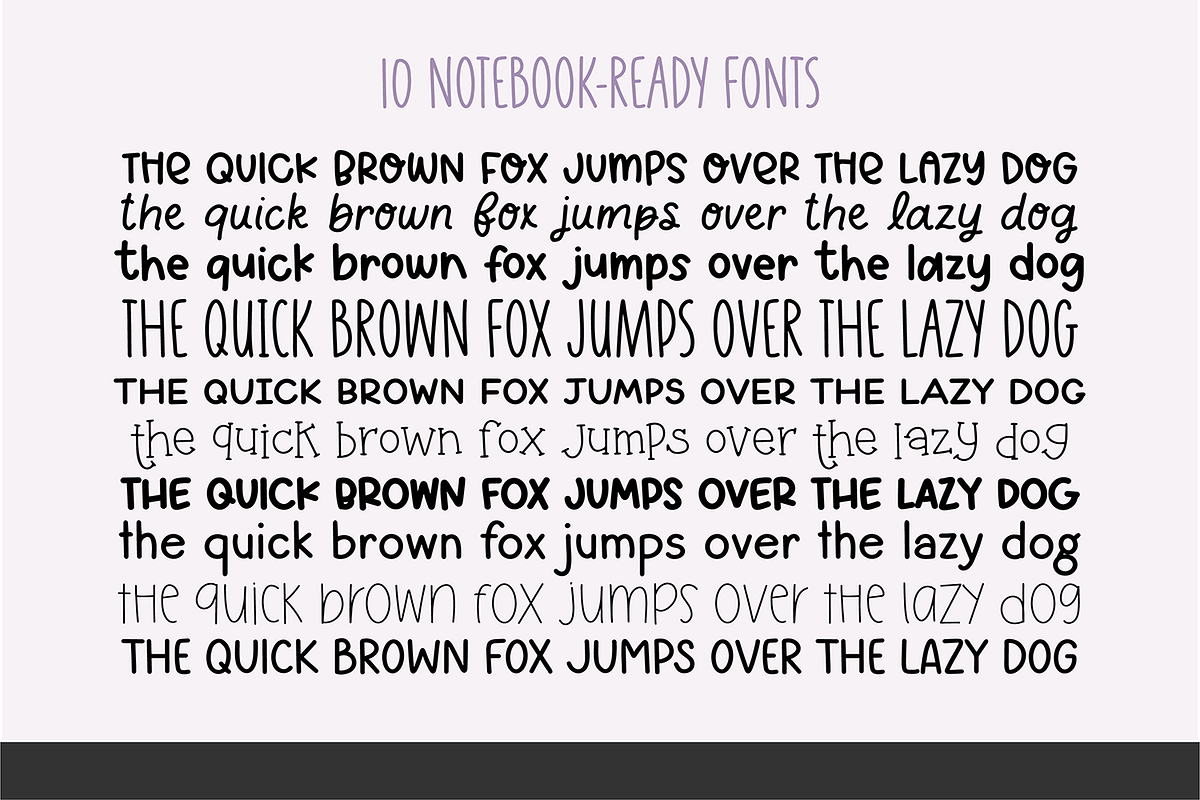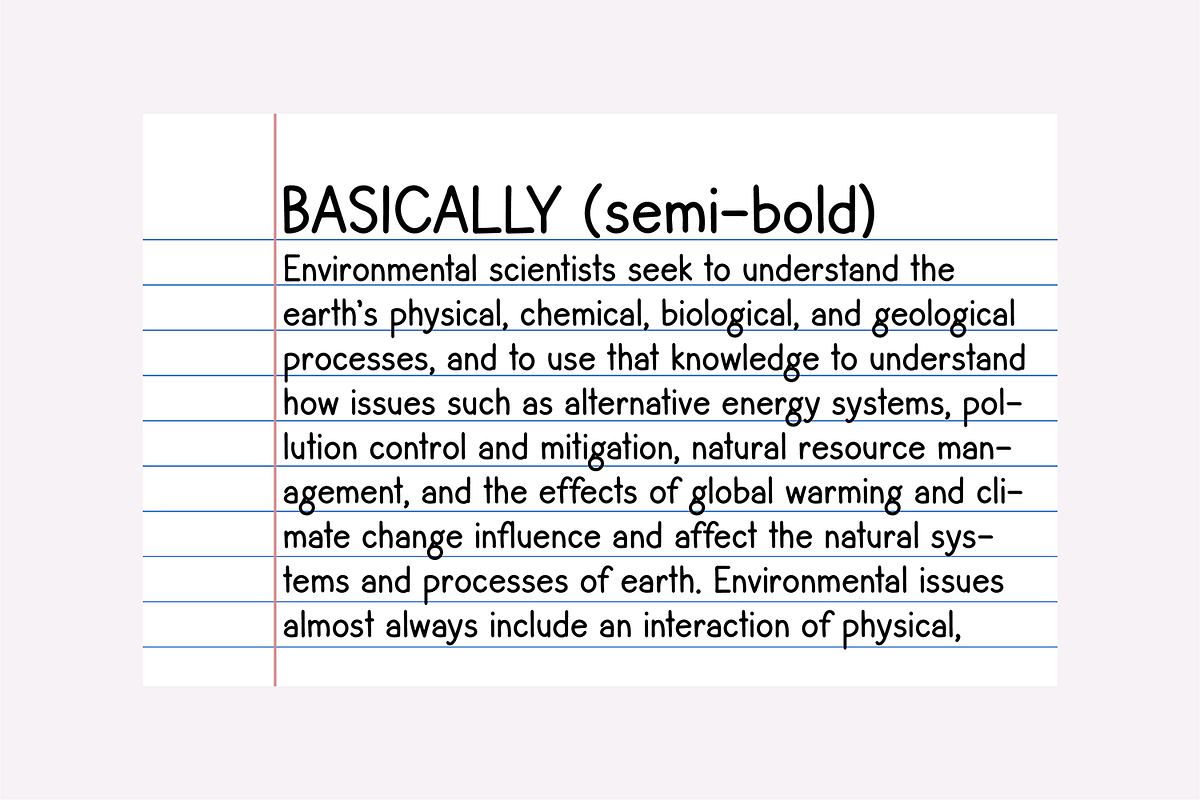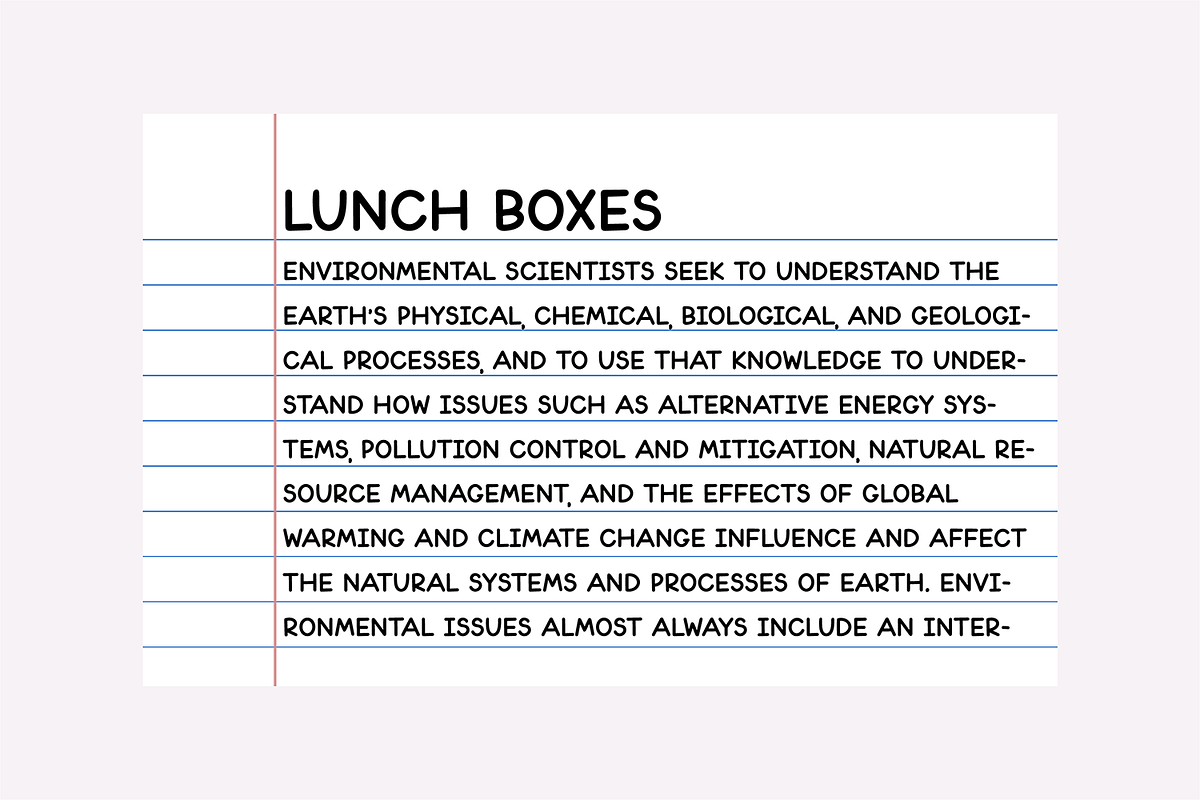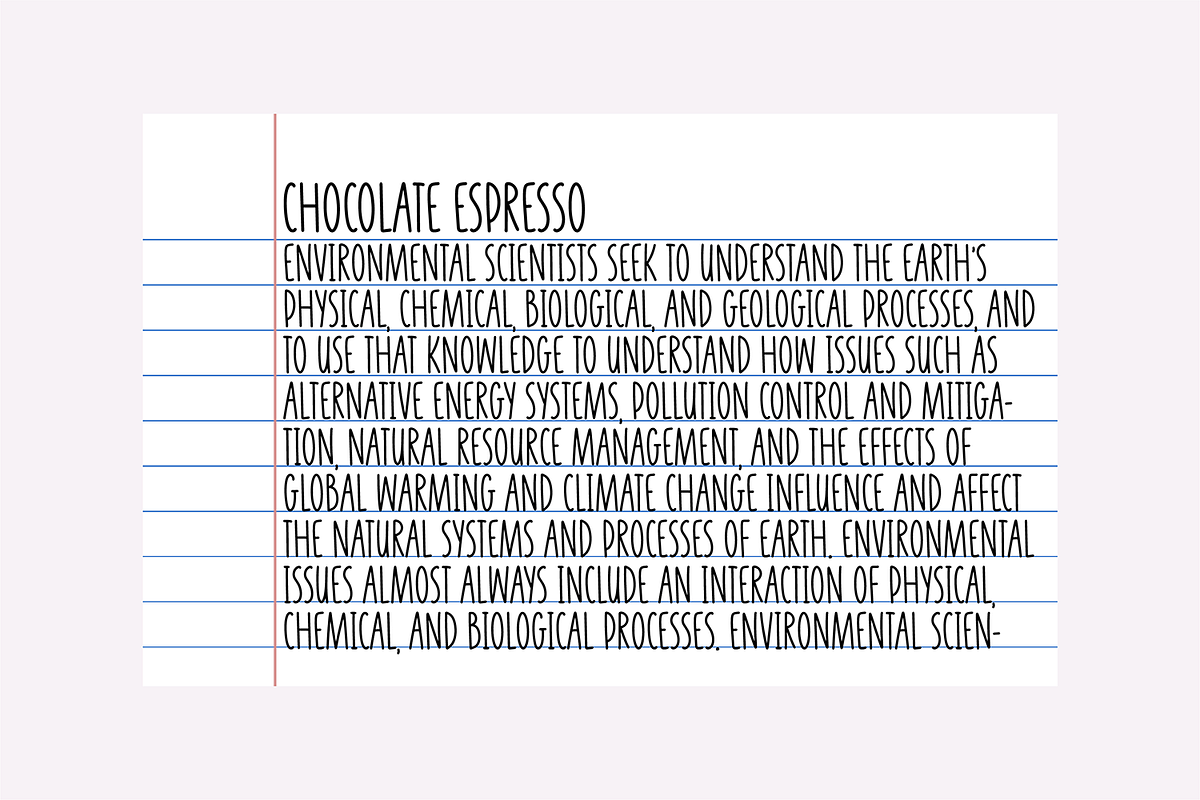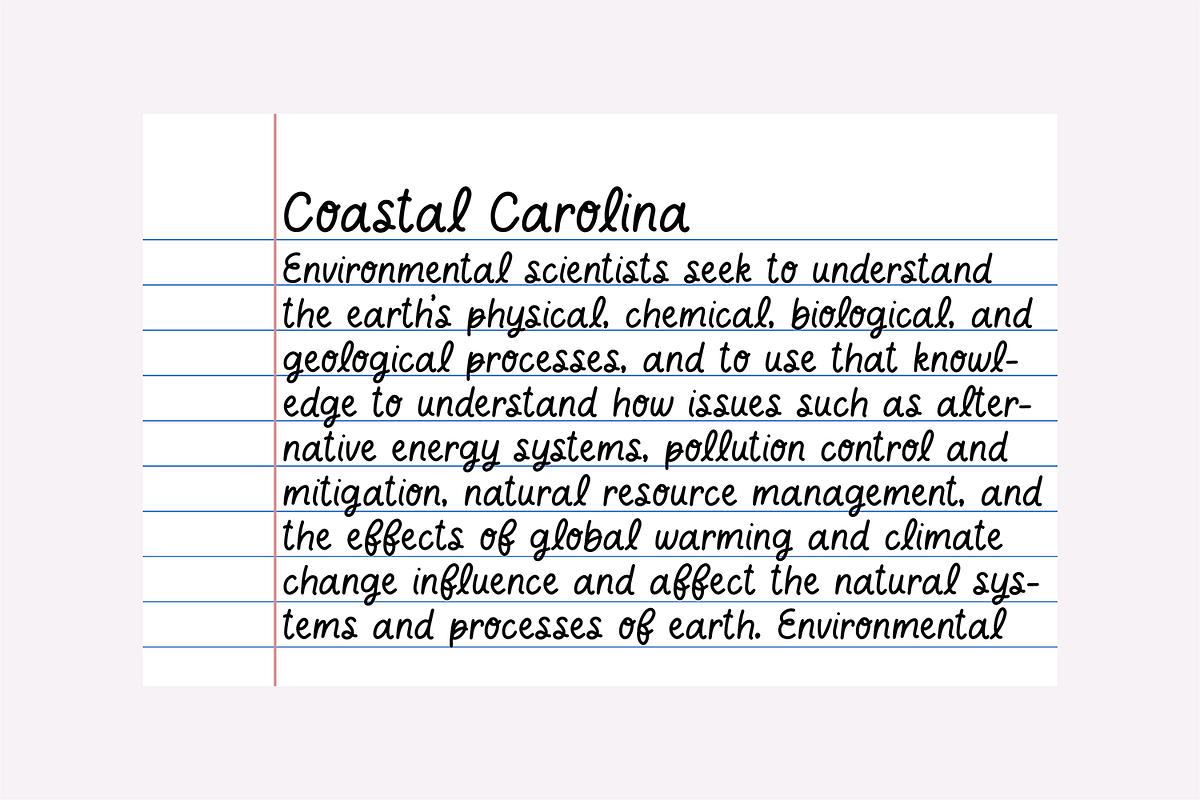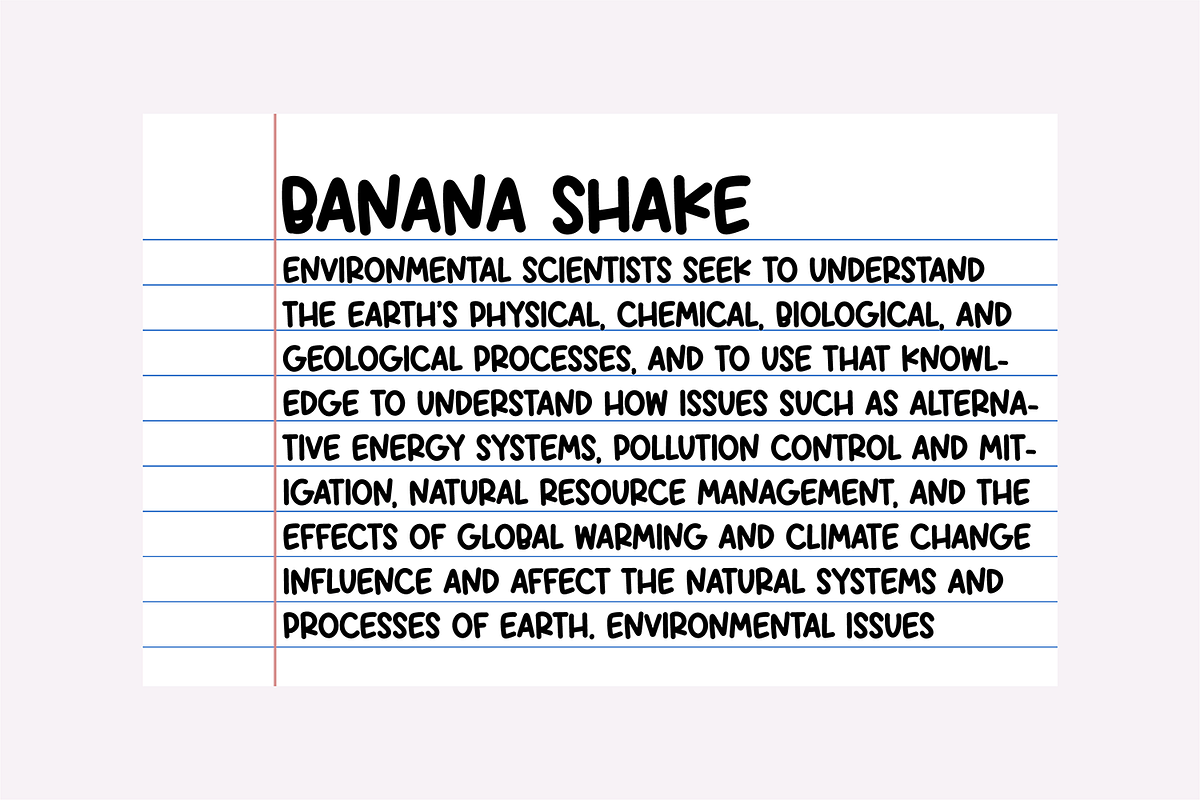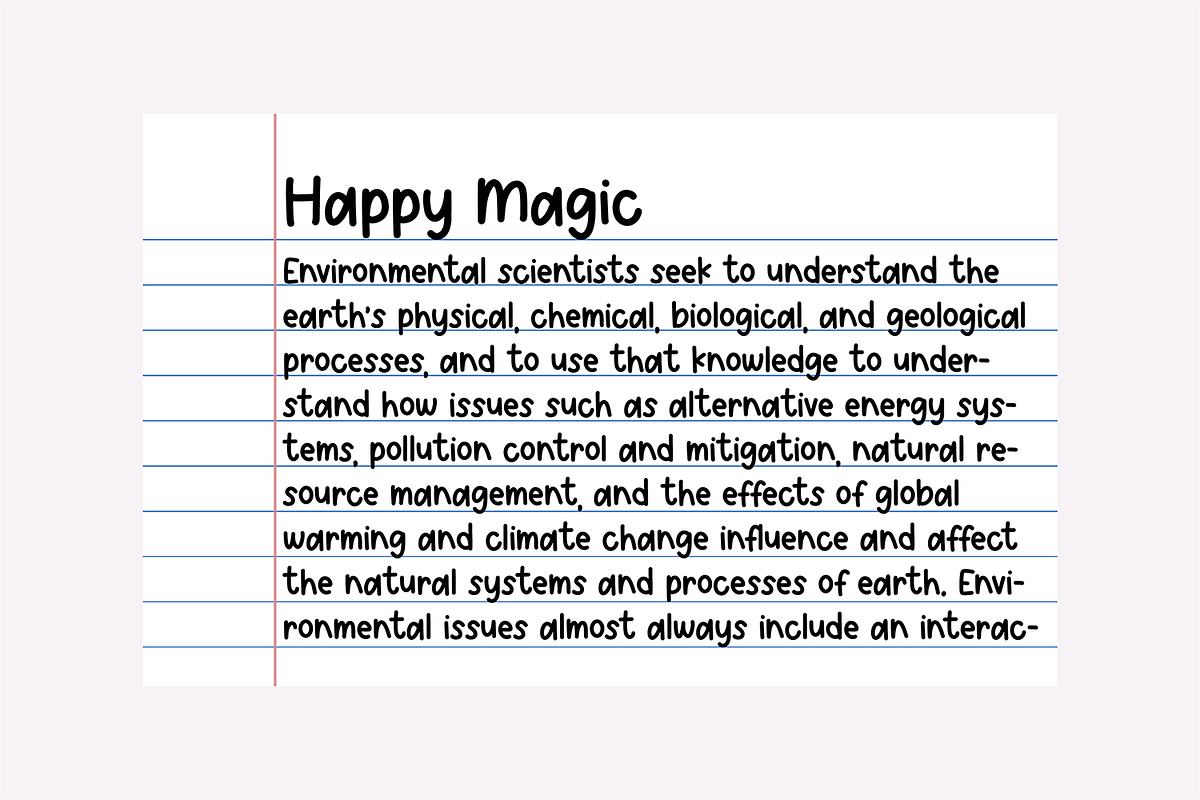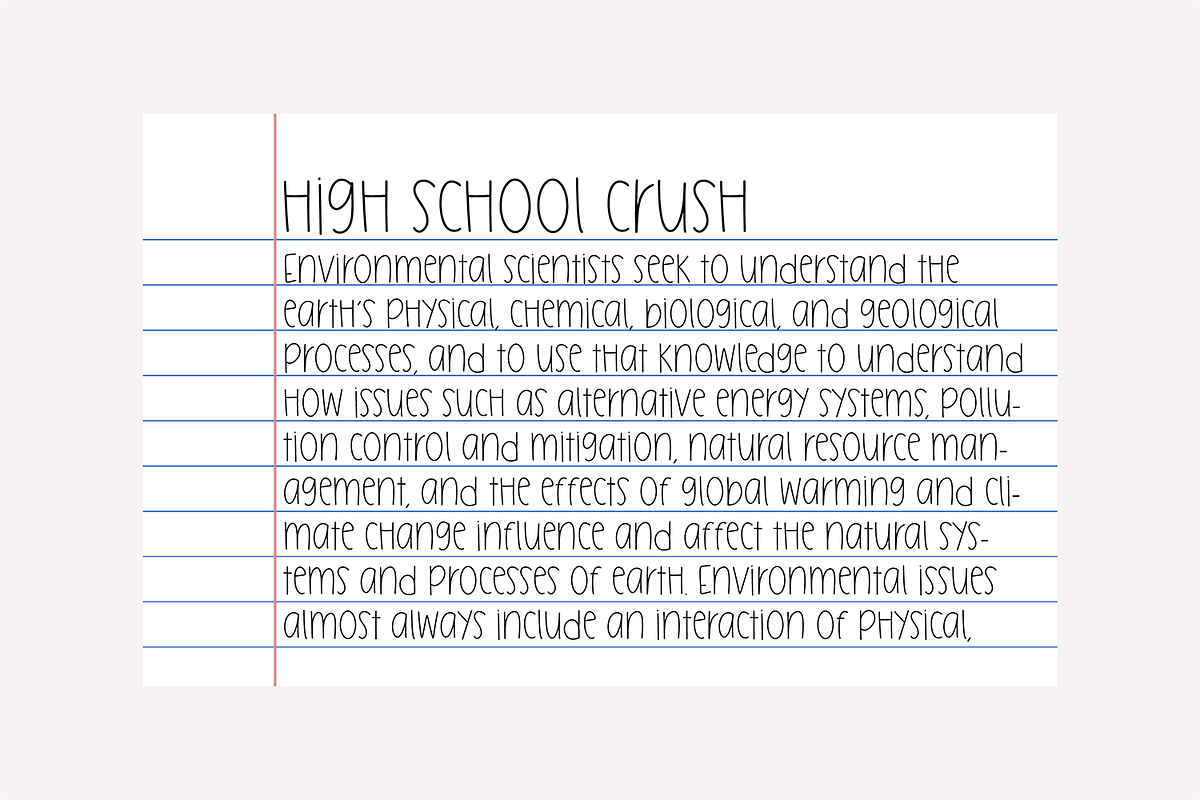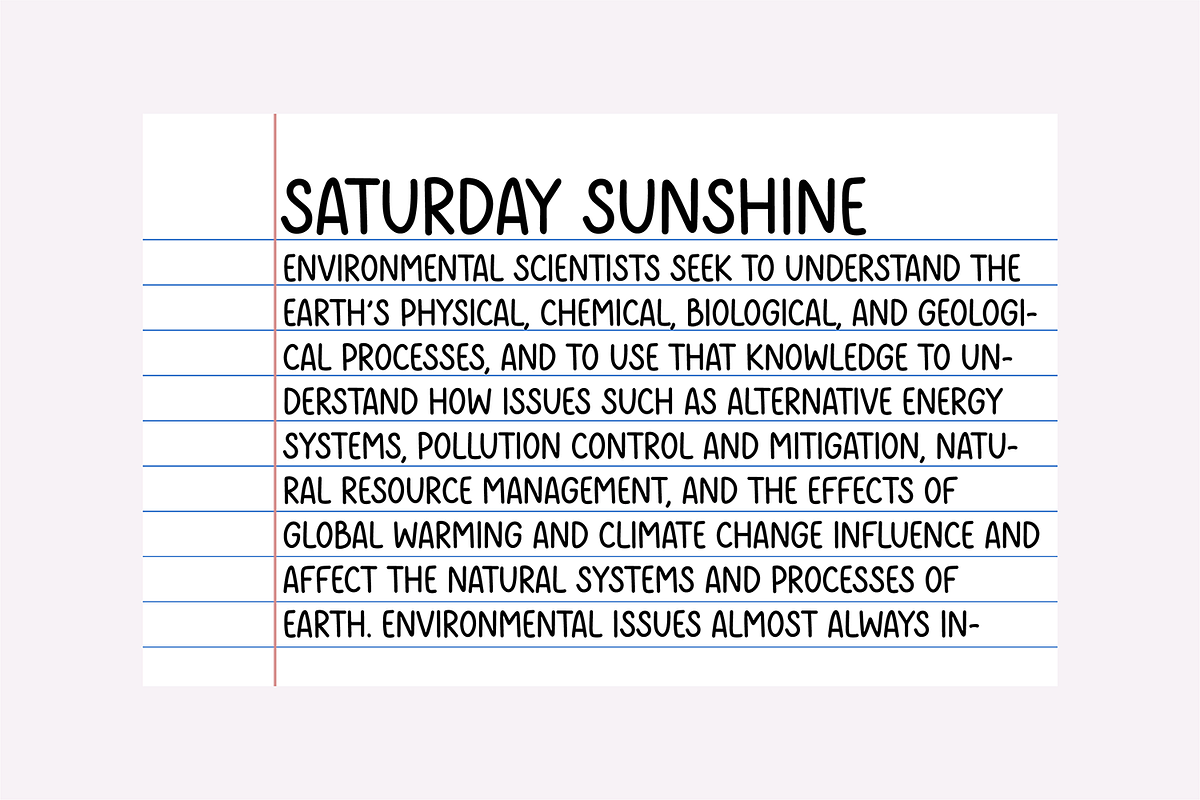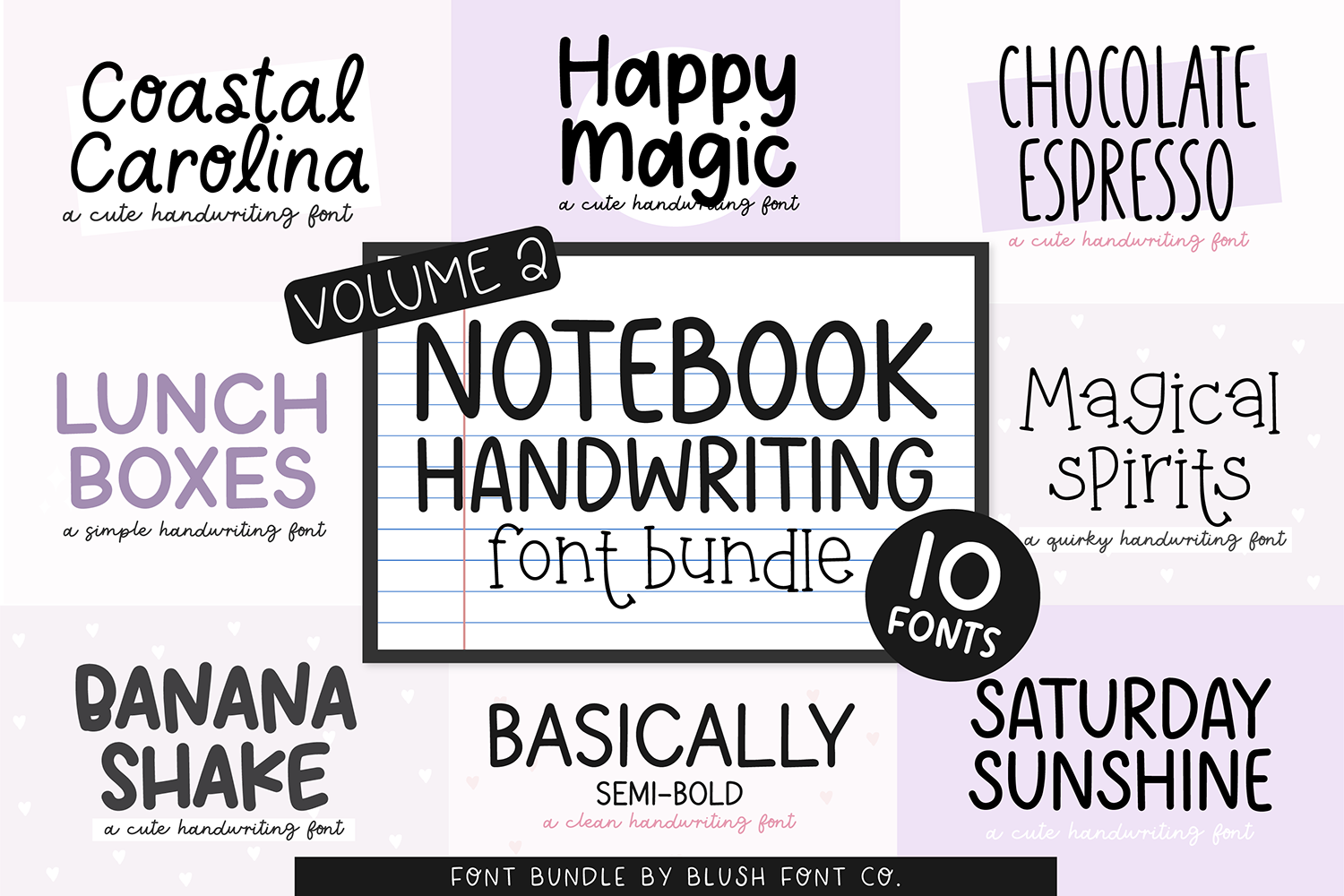
Notebook Handwriting Font Bundle V2
NOTEBOOK HANDWRITING Font Bundle Vol. 2 - 10 fonts!
10 fonts specialized for note-taking.
Fonts Included: CHOCOLATE ESPRESSO HAPPY MAGIC BASICALLY (SEMI-BOLD) COASTAL CAROLINA LUNCH BOXES BANANA SHAKE MAGICAL SPIRITS SATURDAY SUNSHINE DAISY BABY HIGH SCHOOL CRUSH